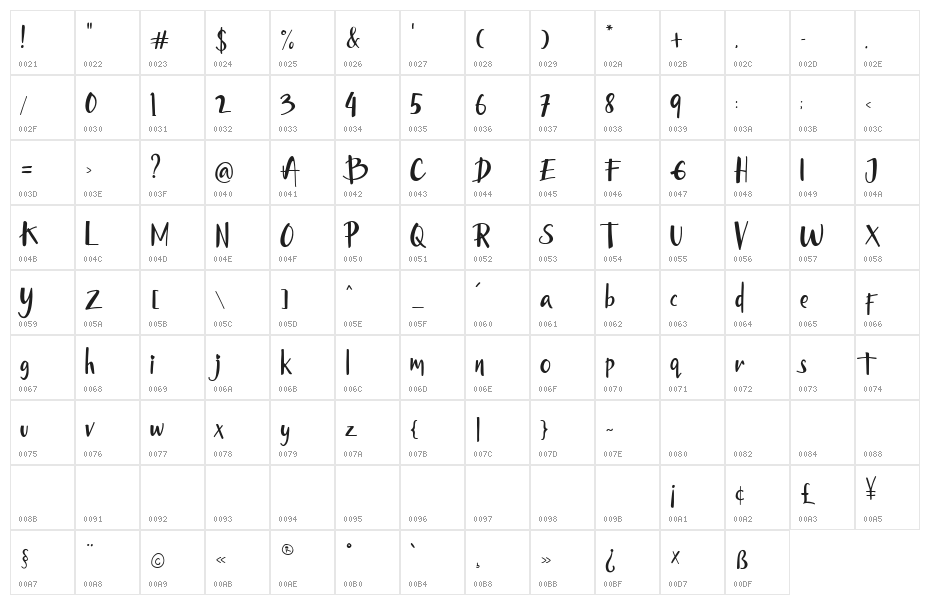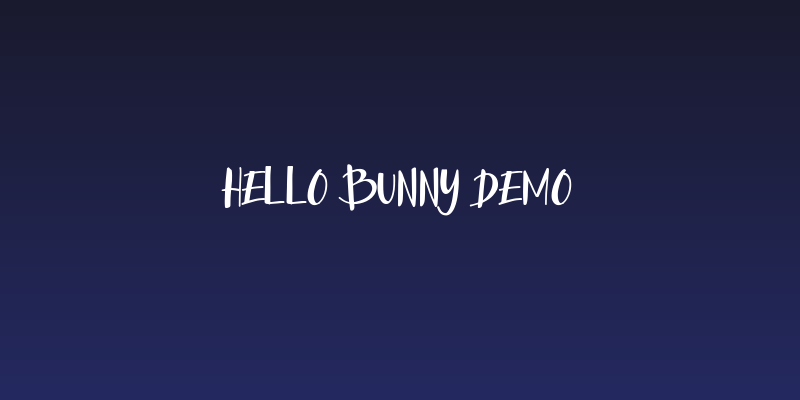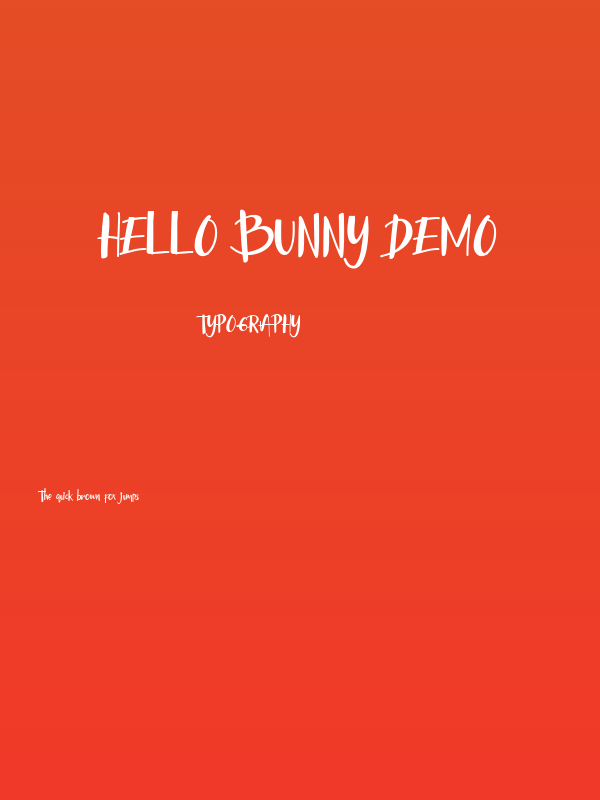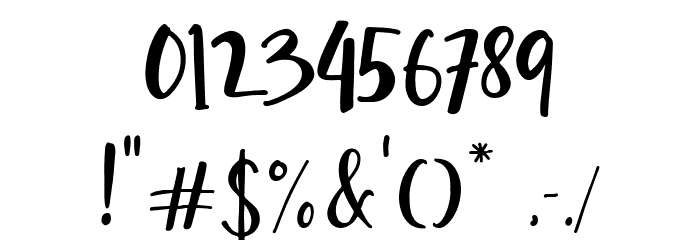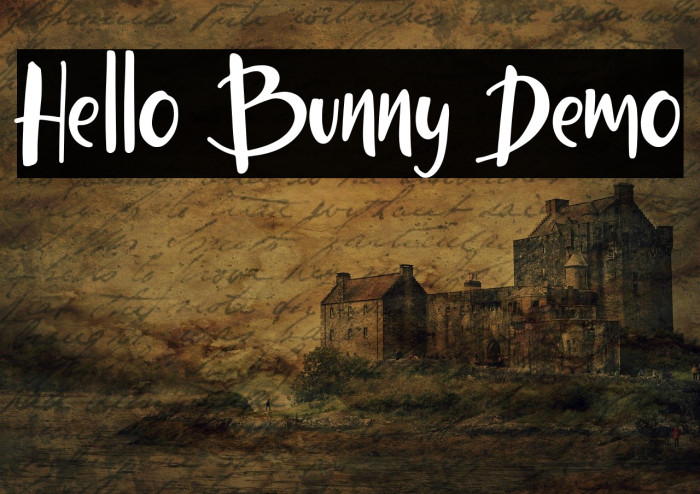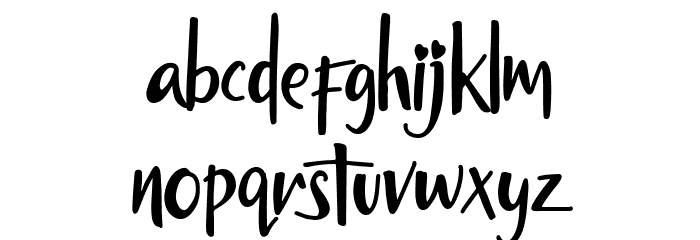
Hello Bunny Demo Font
Hello Bunny Demo Description
This playful and energetic font features a handwritten style with a casual, yet artistic flair. The letters have a dynamic flow, with varying stroke thickness that adds a lively and spontaneous feel. The uppercase characters are bold and slightly irregular, giving them a unique personality. The lowercase letters maintain a consistent style, complementing the uppercase with their rounded and slightly slanted forms. Numbers and special characters follow the same aesthetic, ensuring a cohesive look throughout. The font's informal style makes it perfect for projects that require a touch of fun and creativity.